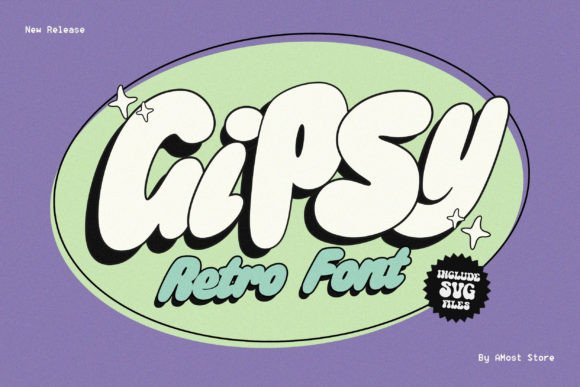
Gipsy Font: A Bold and Retro Display Font for Your Creative Projects
The Gipsy font is a stylish and eye-catching display font that has gained popularity among designers and artists. Its bold and retro aesthetic makes it perfect for a wide range of creative projects, from display designs to product designs, and even digital media. In this article, we will explore the features and uses of the Gipsy font, and why it’s an excellent choice for your next design project.
Key Features of Gipsy Font
- Bold and Retro Aesthetic: The Gipsy font boasts a bold and retro style that is sure to grab attention. Its unique and stylish design makes it perfect for display designs, logos, and branding.
- High Versatility: The Gipsy font is highly versatile and can be used for a wide range of design projects, including shirts, boho designs, stickers, logos, branding, greeting cards, circuit projects, posters, magazines, social media, planner prints, and websites.
- Easy to Read: Despite its bold style, the Gipsy font is easy to read, making it perfect for use in various design projects, from display designs to digital media.
Design Uses of Gipsy Font
The Gipsy font is perfect for a wide range of design projects, including:
- Shirts and Apparel: The Gipsy font is perfect for designing stylish and eye-catching shirts, hoodies, and other apparel.
- Boho Designs: The font’s bold and retro aesthetic makes it perfect for boho designs, including posters, flyers, and social media graphics.
- Stickers and Labels: The Gipsy font is great for designing stickers and labels, adding a touch of personality to your products.
- Logos and Branding: The font’s unique style makes it perfect for creating logos and branding materials that stand out.
- Greeting Cards and Stationery: The Gipsy font is great for designing greeting cards, invitations, and other stationery items.
- Circuit Projects and Electronics: The font’s bold style makes it perfect for designing circuit projects and electronics.
- Posters and Magazines: The Gipsy font is perfect for designing eye-catching posters and magazine covers.
- Social Media and Digital Media: The font’s stylish design makes it perfect for social media graphics, blog posts, and other digital media.
- Planner Prints and Stationery: The Gipsy font is great for designing planner prints, journals, and other stationery items.
- Websites and Blogs: The font’s bold style makes it perfect for use on websites and blogs, adding a touch of personality to your online presence.
Tips for Using Gipsy Font
Here are some tips for using the Gipsy font effectively in your design projects:
- Use it Sparingly: The Gipsy font is bold and eye-catching, so use it sparingly to avoid overwhelming your design.
- Pair it with Other Fonts: The Gipsy font pairs well with other fonts, so experiment with different combinations to find the perfect look for your design.
- Adjust the Size and Color: Adjust the size and color of the Gipsy font to suit your design needs.
- Experiment with Different Effects: Experiment with different effects, such as shadows and outlines, to add depth and interest to your design.
Benefits of Using Gipsy Font
The Gipsy font offers several benefits, including:
- Unique and Stylish Design: The Gipsy font has a unique and stylish design that sets it apart from other fonts.
- High Versatility: The font is highly versatile and can be used for a wide range of design projects.
- Easy to Read: The Gipsy font is easy to read, making it perfect for use in various design projects.
- Time-Saving: The Gipsy font saves you time and effort, as you can use it for multiple design projects.
The Gipsy font is a bold and retro display font that is perfect for a wide range of creative projects. Its unique and stylish design, high versatility, and ease of use make it an excellent choice for designers and artists. By following the tips outlined in this article, you can use the Gipsy font effectively in your design projects and add a touch of personality to your designs.